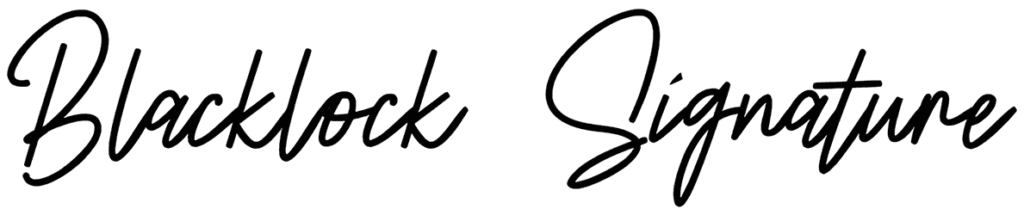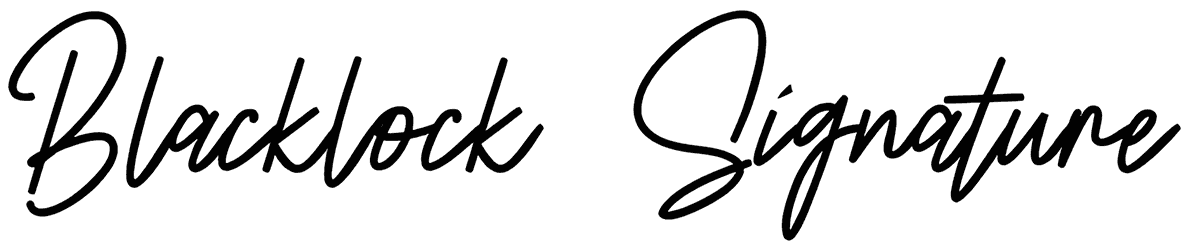
Blacklock Signature Font
Would you want to beautify your text of the intended design with a manual font? Well, this calligraphy font, which is called Blacklock Signature, would help you to make it happen. With slim and down-to-earth letters, this signature font can serve as an elegant illustration for a lot of projects, namely, greeting cards, invitations, planners, and so forth.